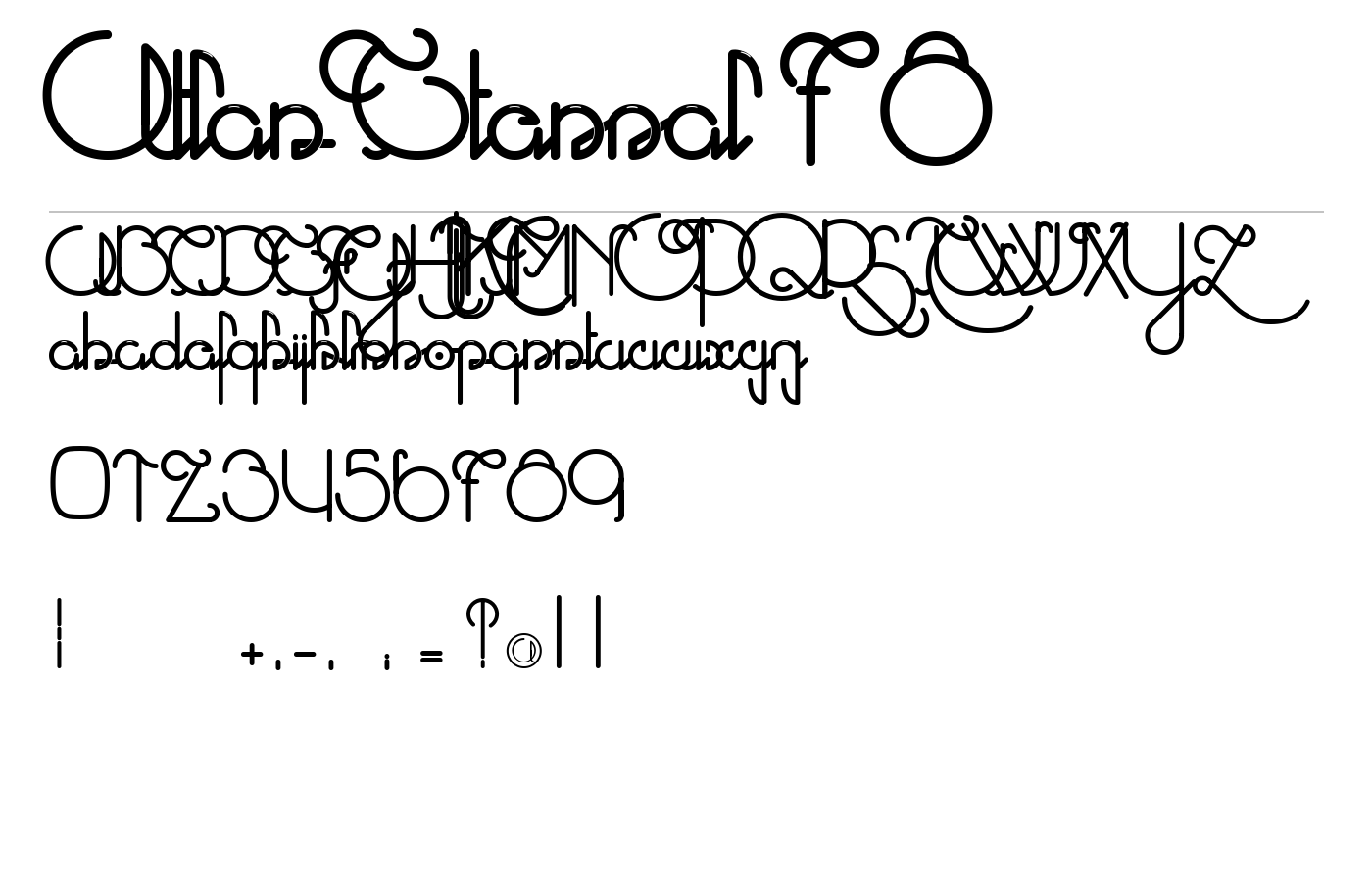
Atlas Eternal 78 is a unique and decorative serif font with elegant, highly stylized letterforms featuring thin strokes and intricate curls. Its delicate design and whimsical curves give it a vintage, artistic feel, making it ideal for creative branding, logos, and eye-catching display purposes rather than long text. This font works best in contexts where a sophisticated yet playful statement is desired.
Atlas Eternal 78 Font
About Atlas Eternal 78 Font